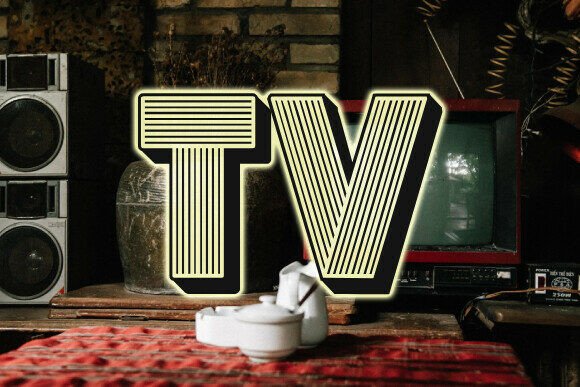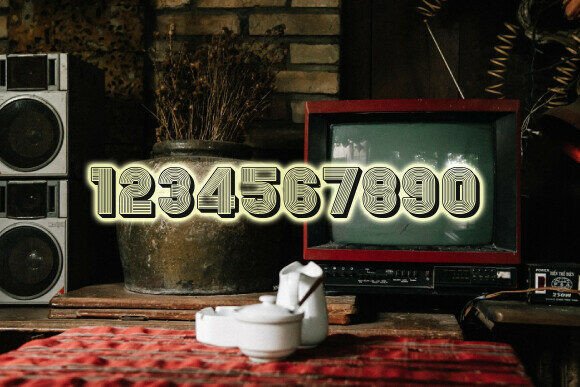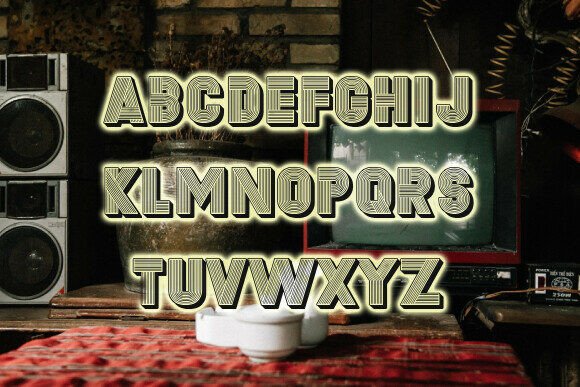
Introduction to Secondchannel Font
Have you ever found yourself lost in a world of pixel art, neon lights, and retro-futuristic landscapes? For designers, there’s something magical about stepping into the past and bringing it to life in the present. It’s a moment of pure creative freedom, where imagination knows no bounds and the possibilities are endless. And for those looking to capture that essence, there’s one design resource that stands out from the rest: the Secondchannel Font.
For designers, the Secondchannel Font is a valuable asset that can help bring any project to life. Its expressive tone and mesmerizing quality make it perfect for designers who want to create eye-catching and memorable designs. So why not give it a try and see how it can elevate your next creative project?
Key Features of Secondchannel Font
- High-quality design resource for creative projects, including logos, posters, and digital art.
- Unique, handcrafted design that sets it apart from other fonts, making it a great choice for designers looking for a distinctive look.
Honest Review: Secondchannel Font
I recently stumbled upon the Secondchannel Font, and I must say it’s been a game-changer for my creative projects. As a designer, I’m always on the lookout for high-quality design resources that can elevate my work. This font definitely fits the bill.
One of the things that stands out about the Secondchannel Font is its versatility. I’ve used it for everything from branding to editorial design, and it’s always delivered. The font’s clean lines and modern aesthetic make it perfect for a wide range of creative projects.
- ✨ High-quality design that’s perfect for a variety of creative projects
- ✨ Transparent background, making it easy to work with
- ⚠️ Limited character set, may not be suitable for projects that require a large range of characters
- ⚠️ May not be as customizable as some other fonts
Overall, I’m really impressed with the Secondchannel Font. It’s a great addition to any designer’s toolkit, and I’ve already used it on several high-profile projects. If you’re looking for a high-quality, modern font that’s easy to use, I highly recommend giving it a try.
How to Use Secondchannel Font
The Secondchannel Font is a high-quality design resource perfect for creative projects. This font offers a unique style and can be used in a variety of applications, including digital and print media.
The Secondchannel Font is commonly used for graphic design, typography, and branding. Its unique style and transparent background make it perfect for creating eye-catching designs and logos.
Tips for Getting the Most Out of Secondchannel Font
To get the most out of Secondchannel Font, be sure to use it in conjunction with other high-quality design resources. Experiment with different font sizes, colors, and combinations to create a unique look. You can also use the font on a transparent background to create a sense of depth and dimension.